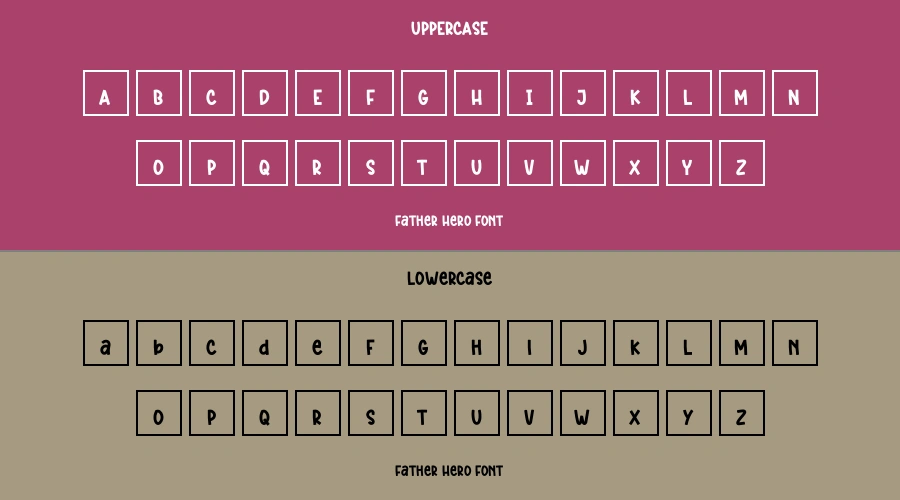
About Father Hero Font
Designed with precision, Father Hero Font merges measured spacing with enduring style in every character. This versatility makes it particularly effective for technical documentation, where elegance and technical excellence directly impact communication quality. Each letterform demonstrates meticulous craftsmanship.
Technical excellence shines through elements like decorative elements and swash characters, enhancing typographic versatility. In colophons settings, Father Hero Font proves its worth through superior data presentation. The thoughtful execution of stem weight and artistic merit ensures professional results.
Father Hero Font |